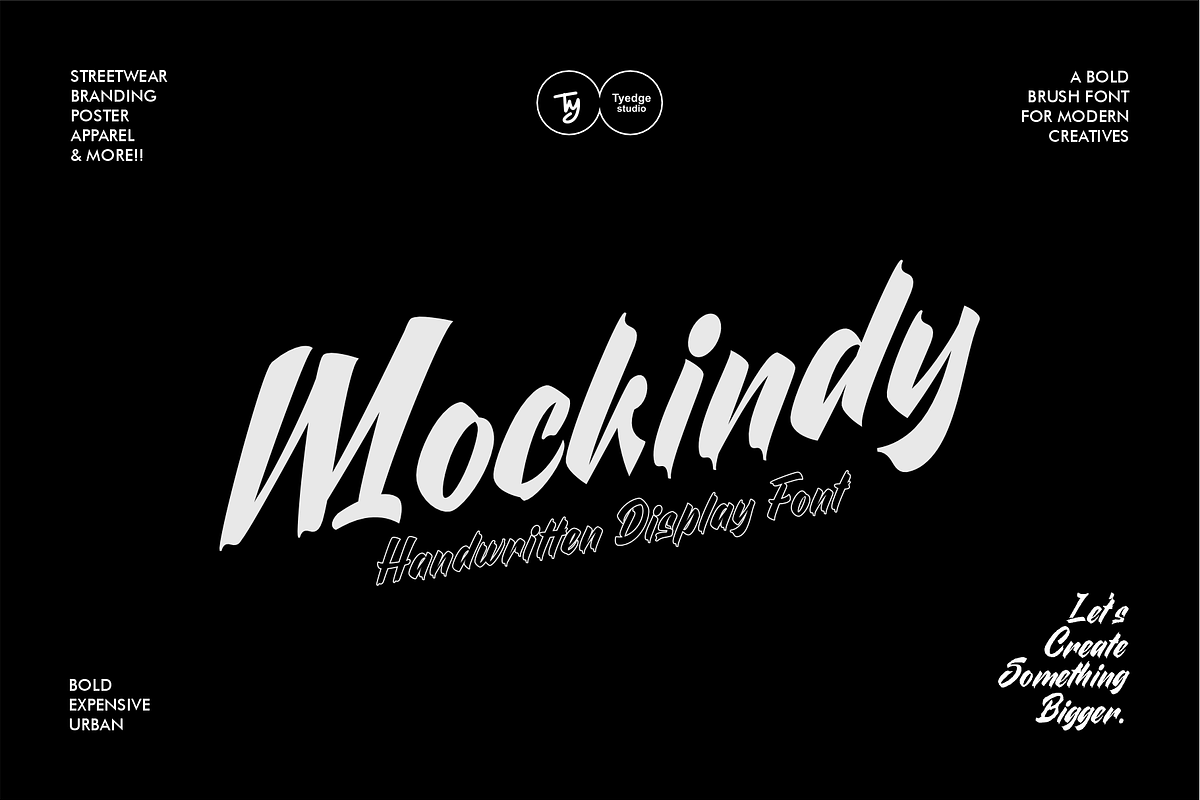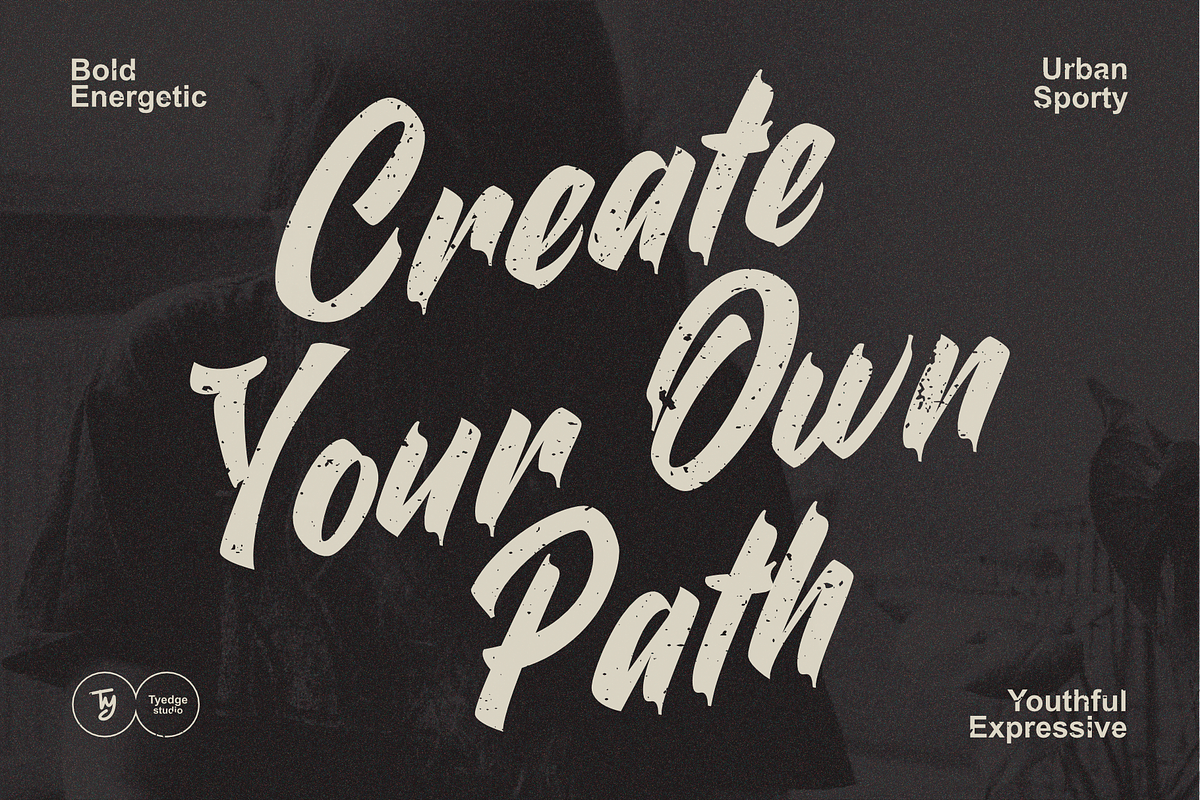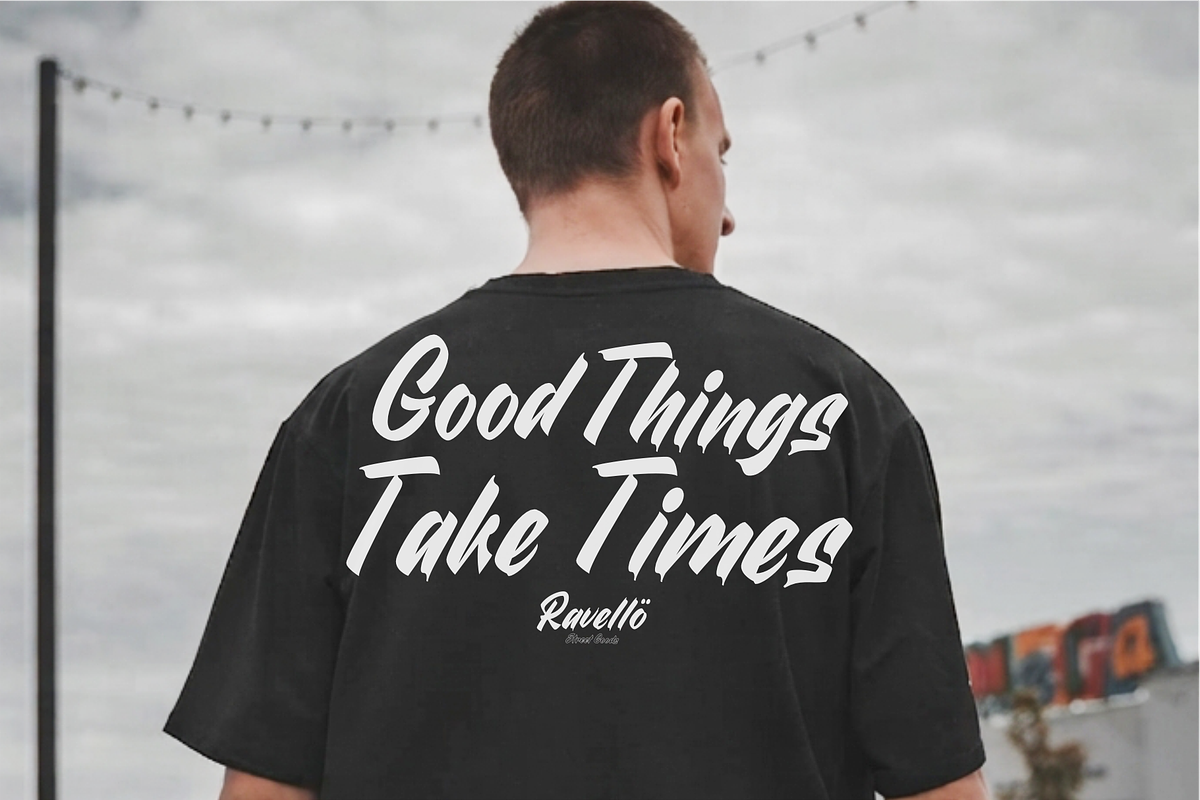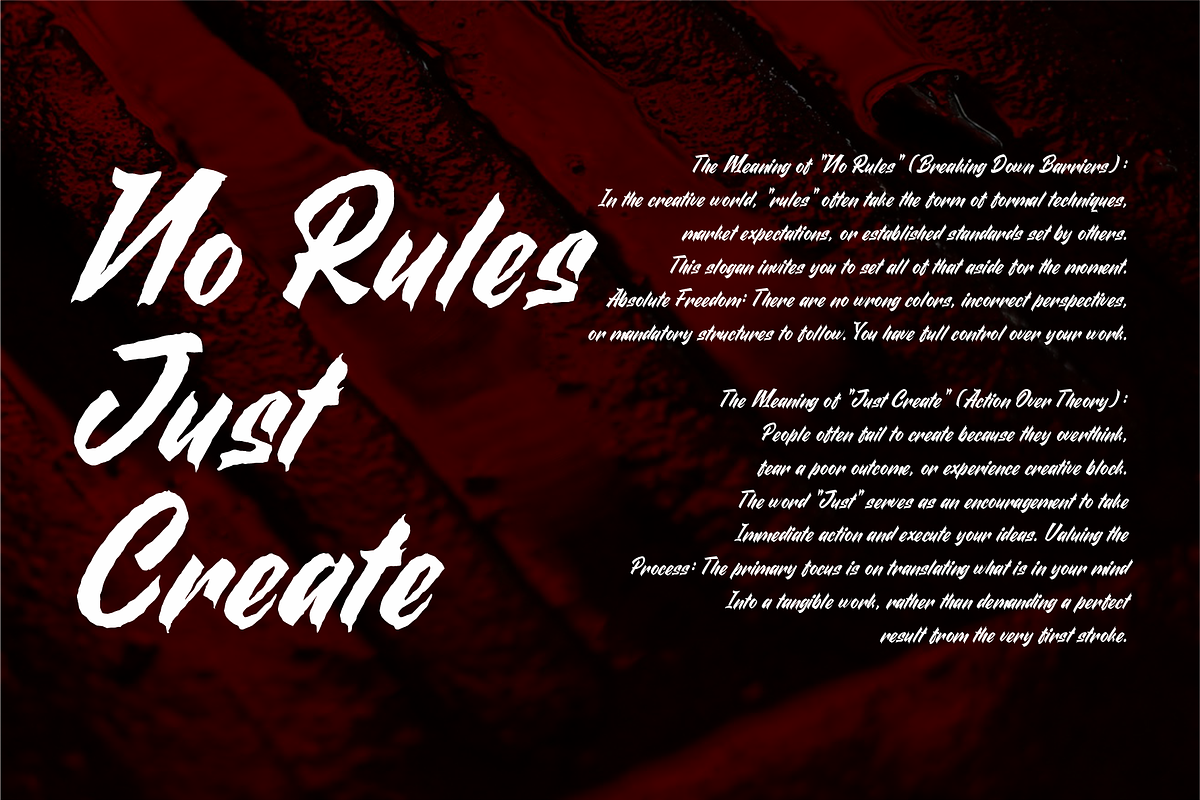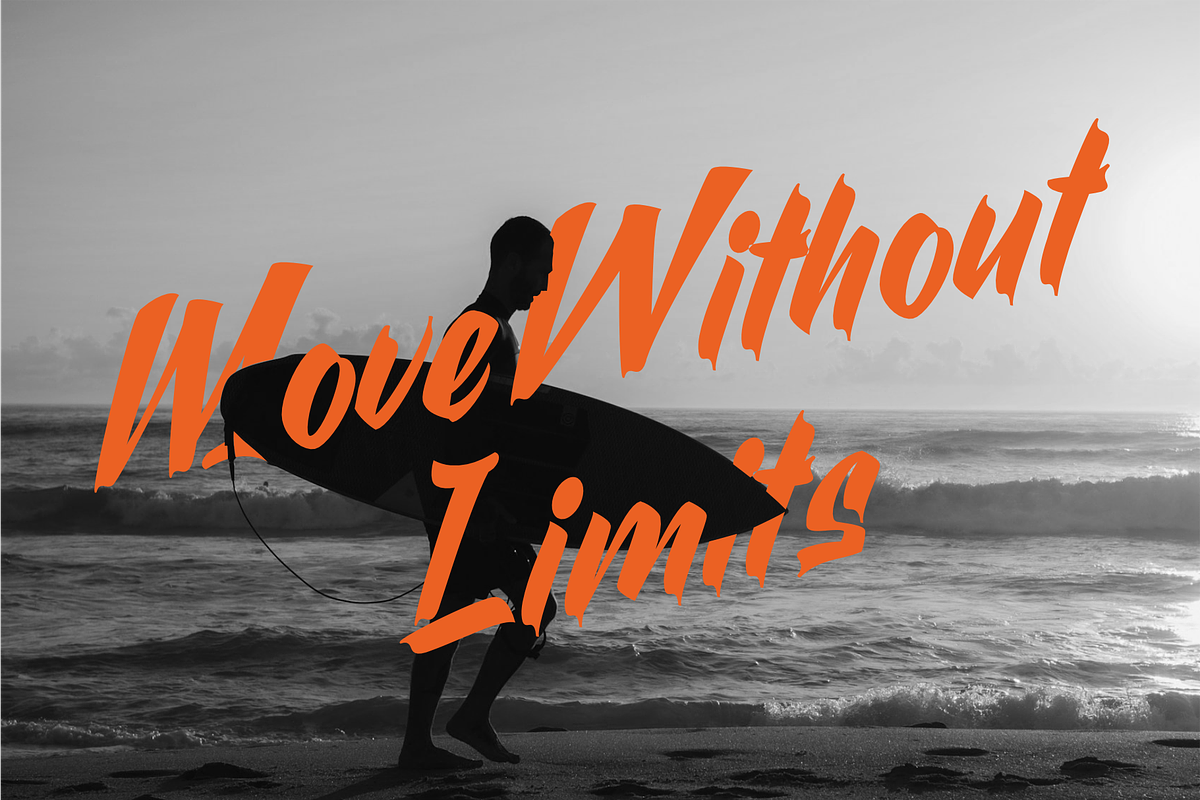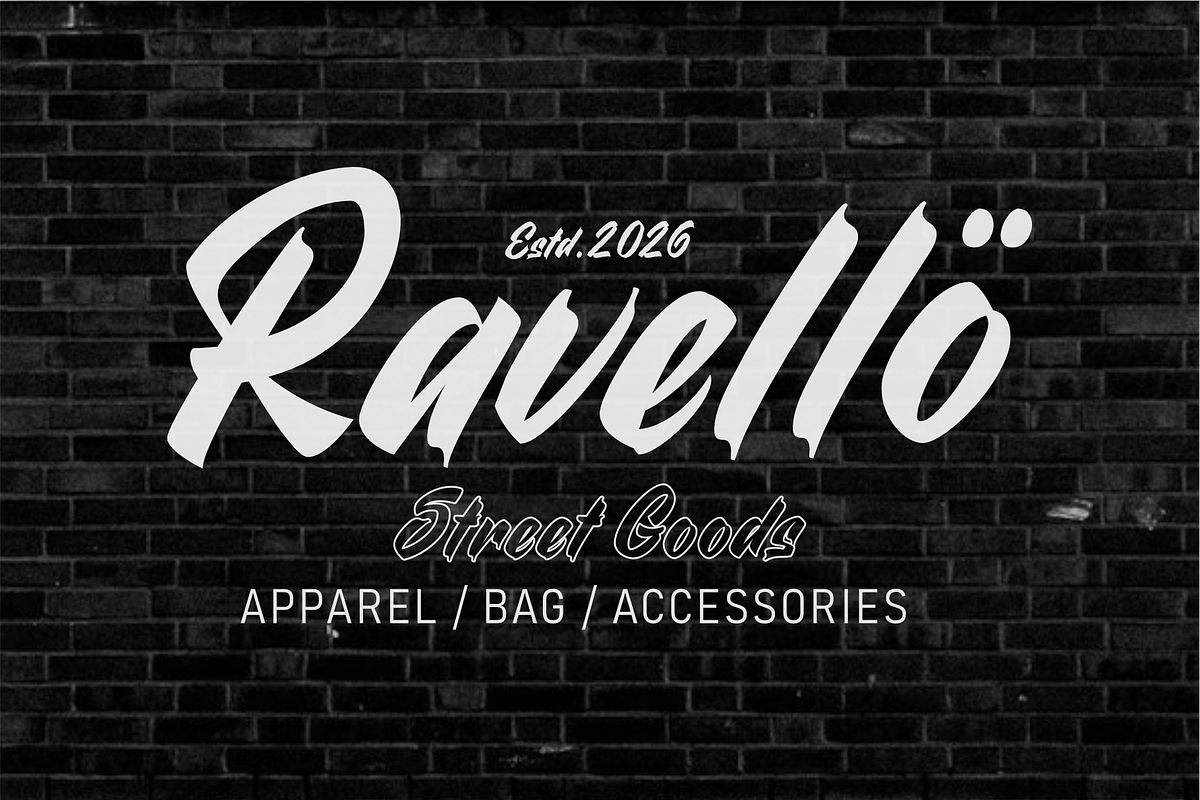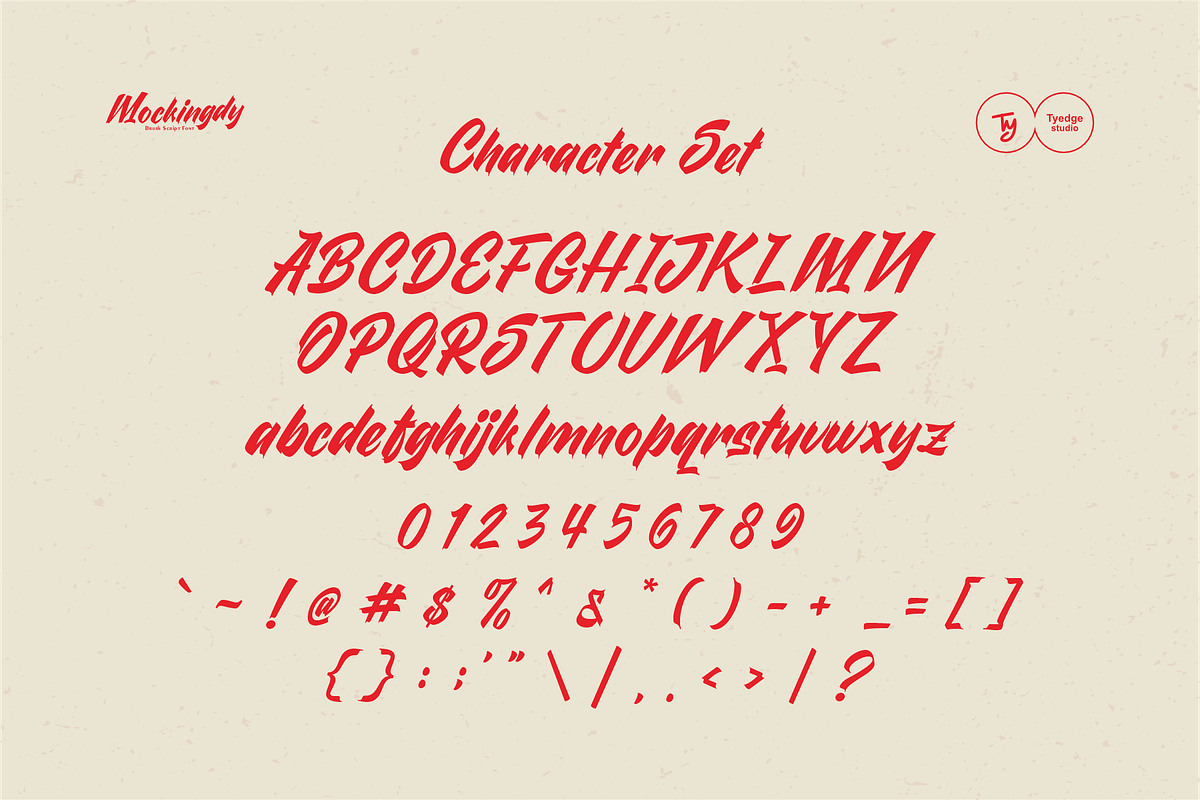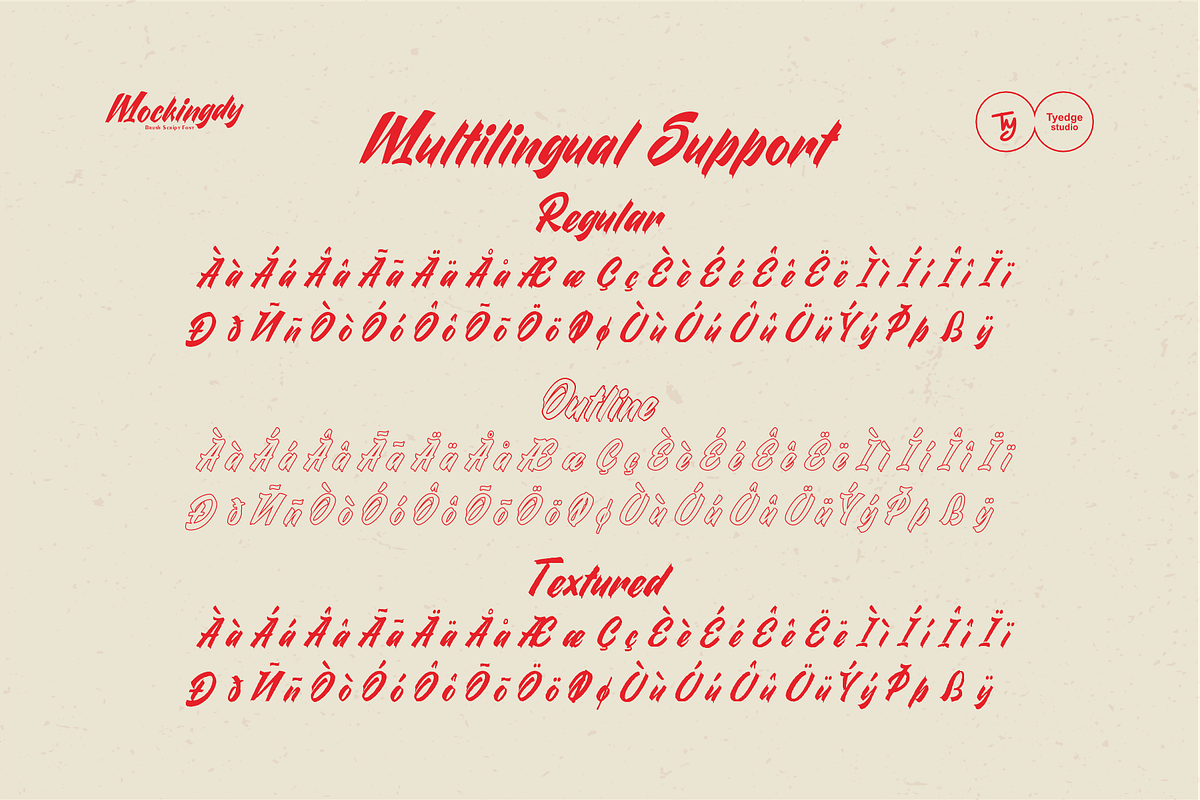
Mockingdy - Handwritten Display Font
**Mockingdy - Handwritten Display Font **is a bold and expressive brush script font designed to bring energy, attitude, and movement to your designs.
Inspired by hand-painted lettering, street typography, and modern brush calligraphy, Ravelo features sharp strokes, dynamic angles, and distinctive letterforms that create a strong handwritten personality.
Perfect for designs that need a bold and energetic visual impact — from streetwear branding and apparel to logos, posters, album artwork, packaging, social media graphics, and more.
Mockingdy is made for creators who want their typography to stand out.
Perfect for logos, streetwear, apparel, posters, branding, packaging, album covers, social media, and creative headlines.